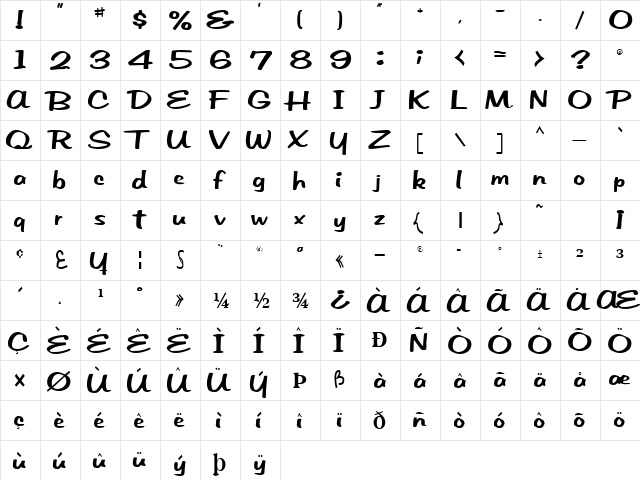
CityScapeNorm48 Regular Font Preview
CityScapeNorm48 Regular
CityScapeNorm48 Regular Font Details
Design Context for CityScapeNorm48 Typeface
CityScapeNorm48 is a composed and adaptable typeface that performs quietly and consistently across a wide range of design contexts.